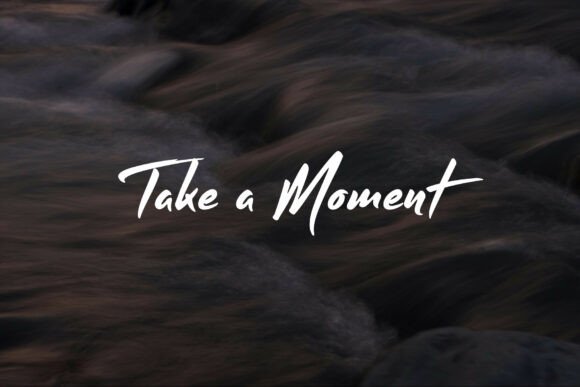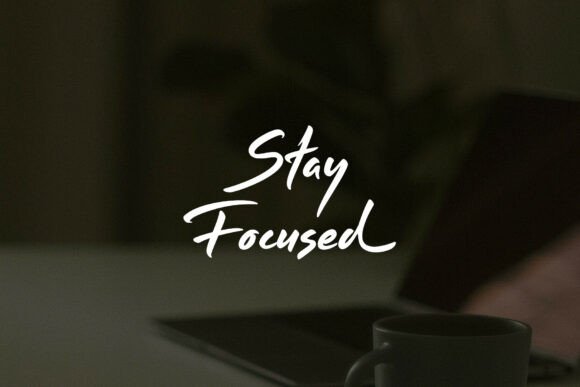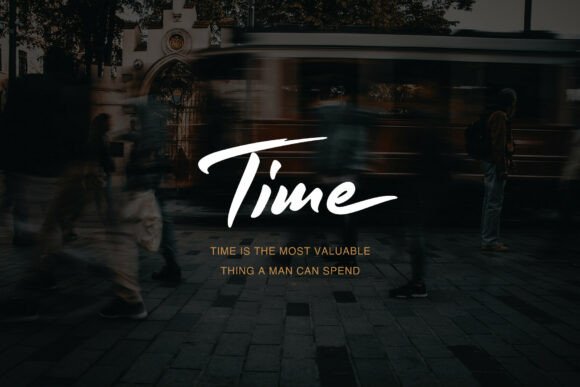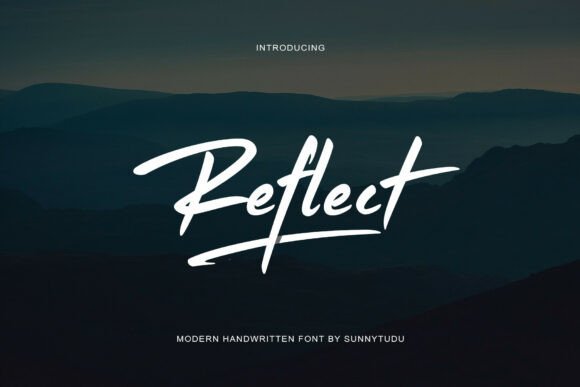
Introduction to Reflect Handwritten Font Font
Capture the raw energy of a hand-painted signature with Reflect, a modern handwritten font by Sunnytudu.
Featuring fast, sweeping strokes and sharp, tapering terminals, Reflect exudes a sense of motion and urban sophistication Its slightly slanted rhythm and “dry brush” aesthetic make it a powerful tool for brands that want to communicate edge, confidence, and a personal, human touch.